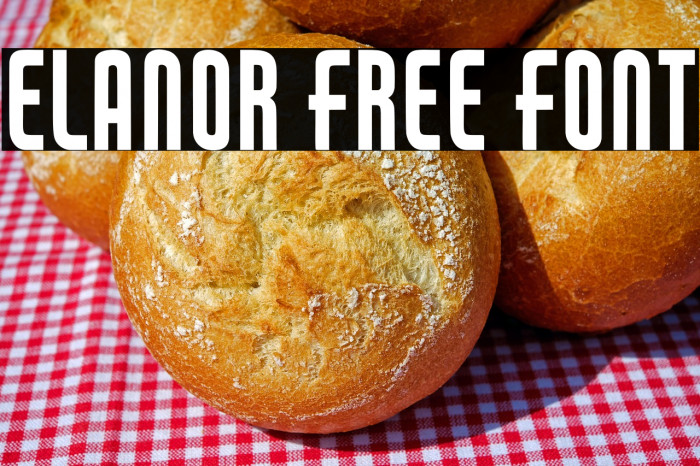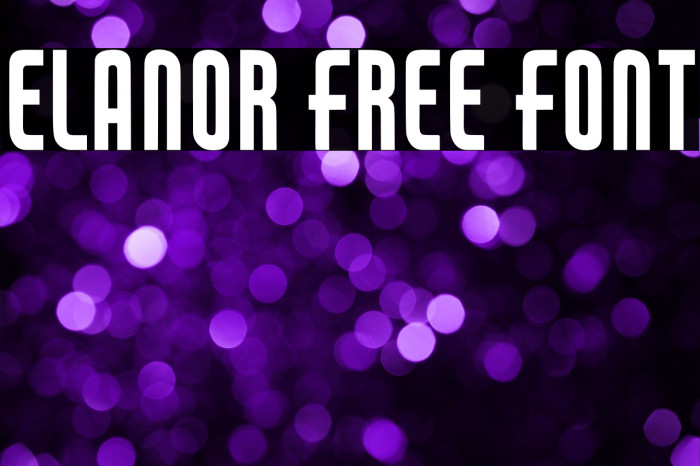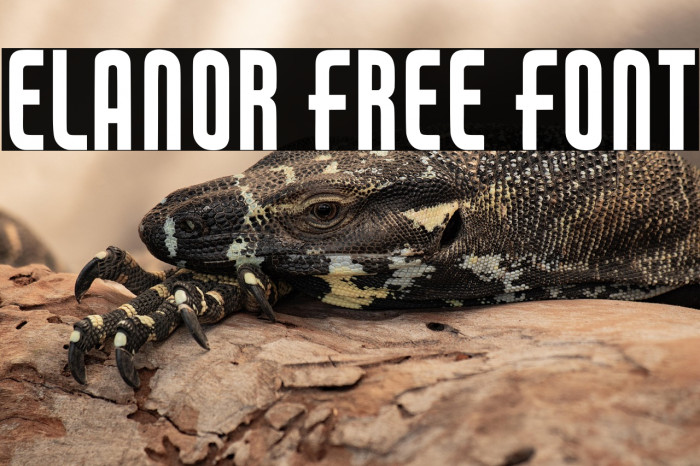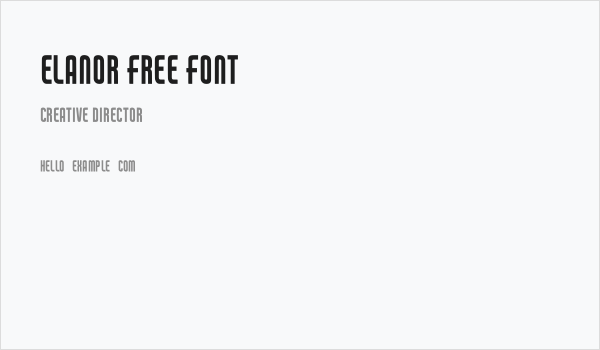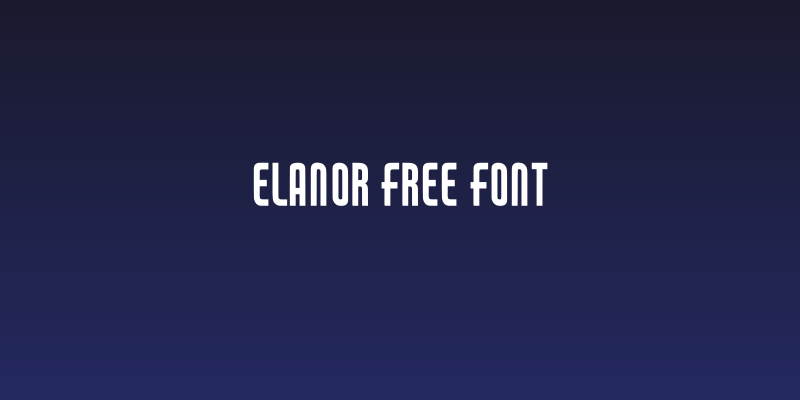
Elanor Free Font Font
Elanor Free Font Description
This font features a bold and modern design with a strong geometric structure. The characters are tall and narrow, giving it a condensed appearance. The strokes are uniform in thickness, providing a consistent and clean look. The absence of serifs and the straight lines contribute to its contemporary style. It is highly legible and makes a strong visual impact, ideal for attention-grabbing headlines and titles. The uppercase letters are prominent, and the overall design is sleek and professional.
| Proposed Projects | Ideal for branding, posters, headlines, and editorial design where a strong, modern impact is desired. |